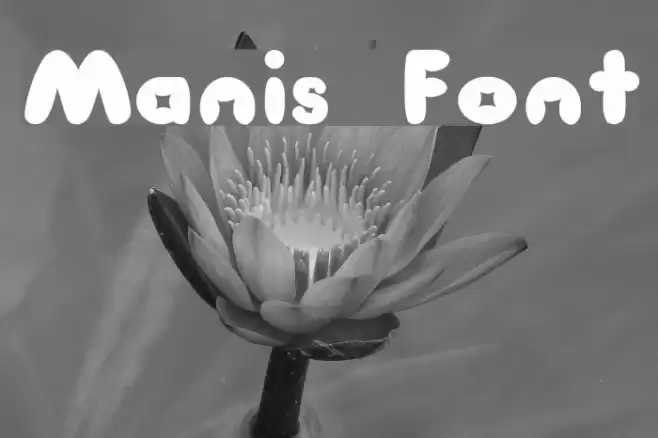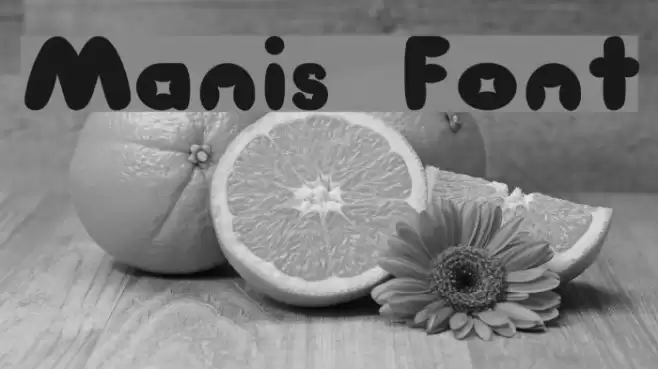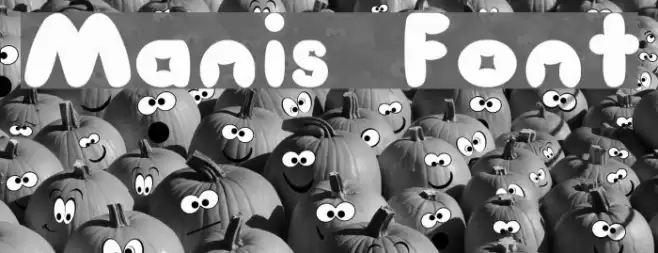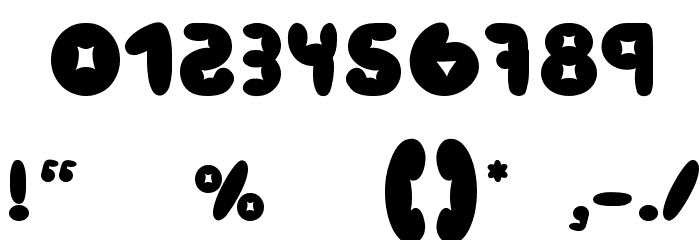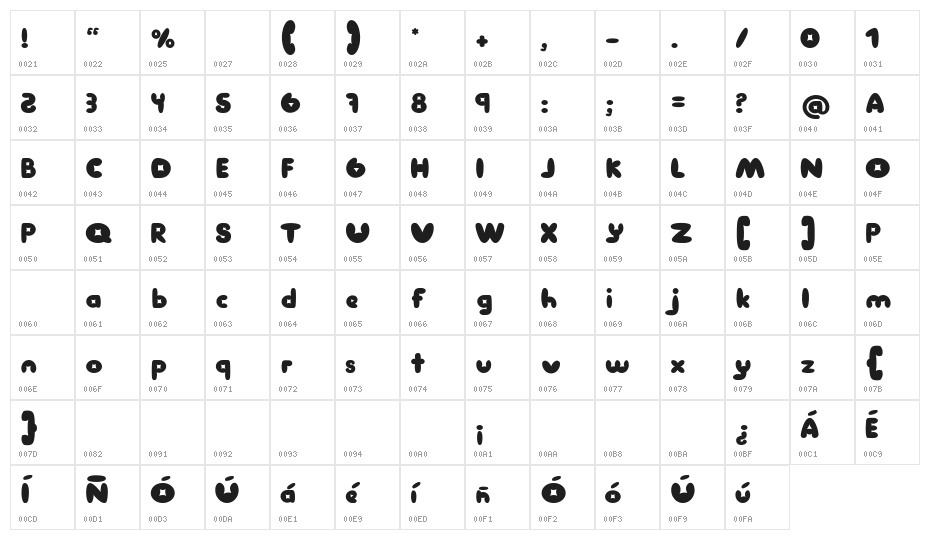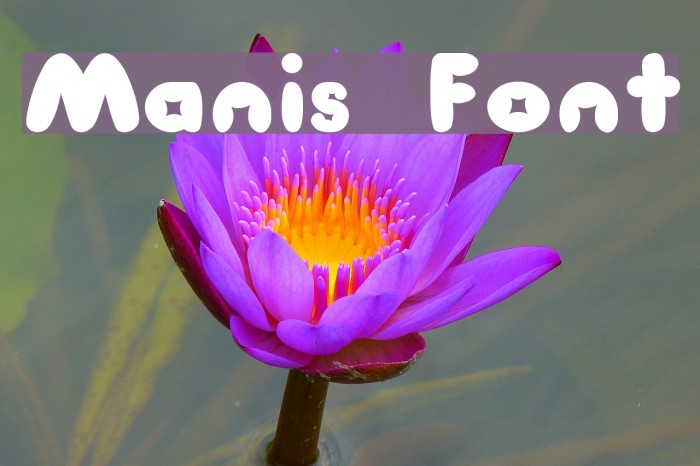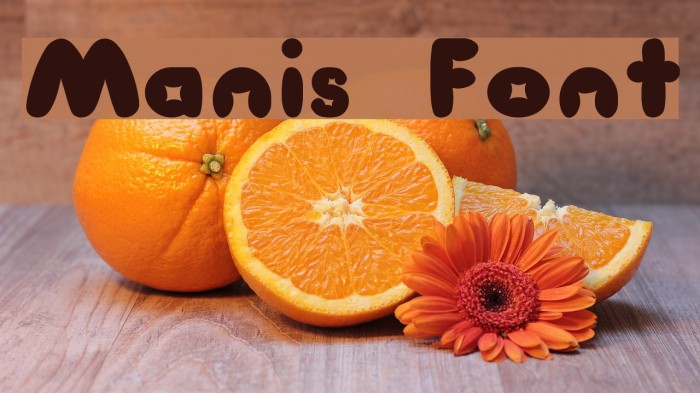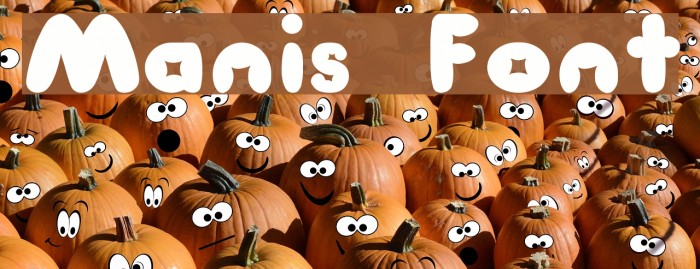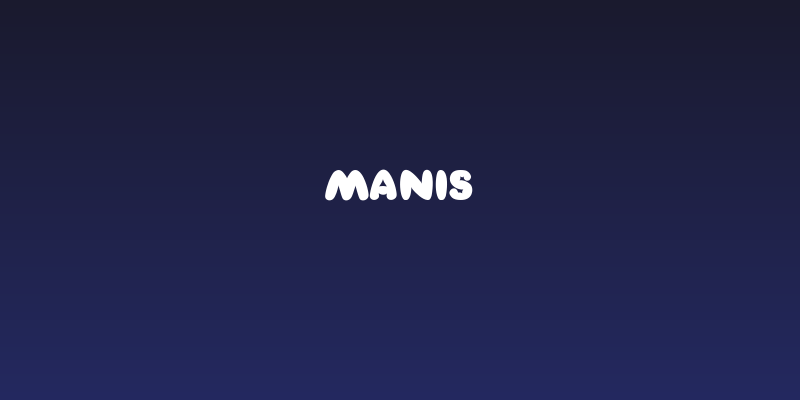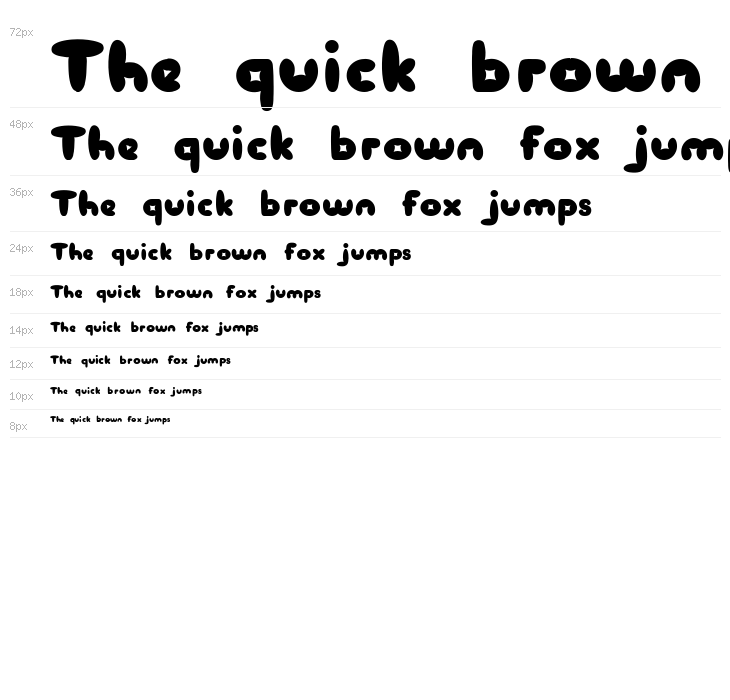
Manis Font
Manis Description
This playful and bold font features rounded, bubble-like characters that convey a sense of fun and creativity. The letters are thick and have a uniform stroke width, giving them a strong presence on the page. The font includes both uppercase and lowercase letters, numbers, and a selection of special characters. Its unique style is characterized by smooth curves and a slightly whimsical appearance, making it ideal for projects that require a touch of personality and flair. The consistent thickness of the strokes ensures readability while maintaining a distinctive look.
A playful, bold font with rounded, bubble-like characters from Cartoon fonts.
- Overall Style: Playful